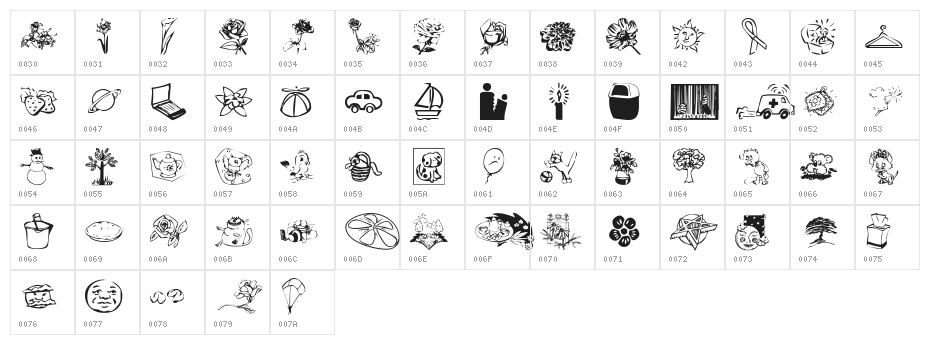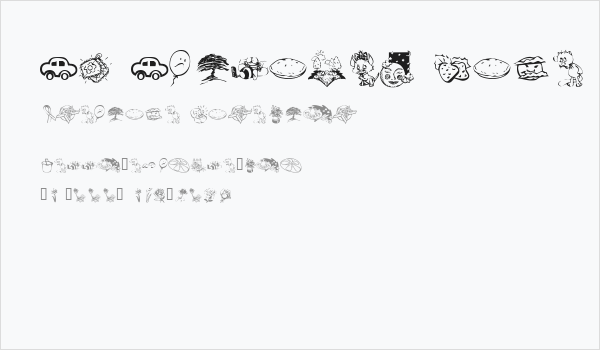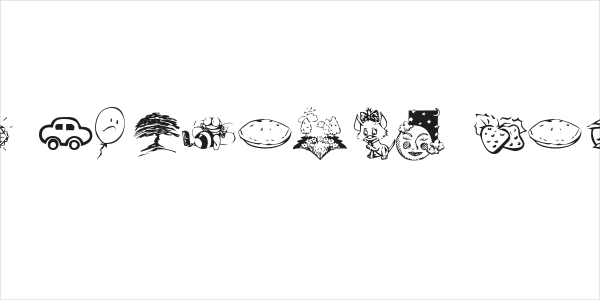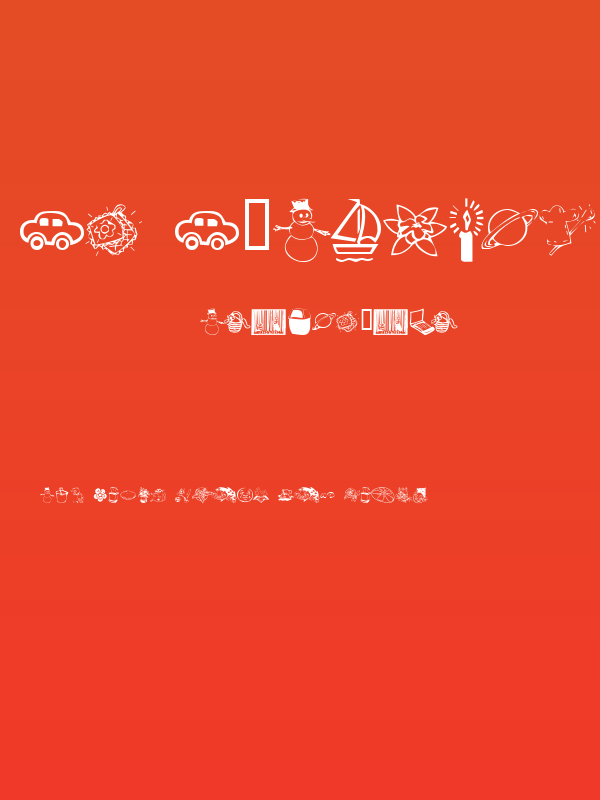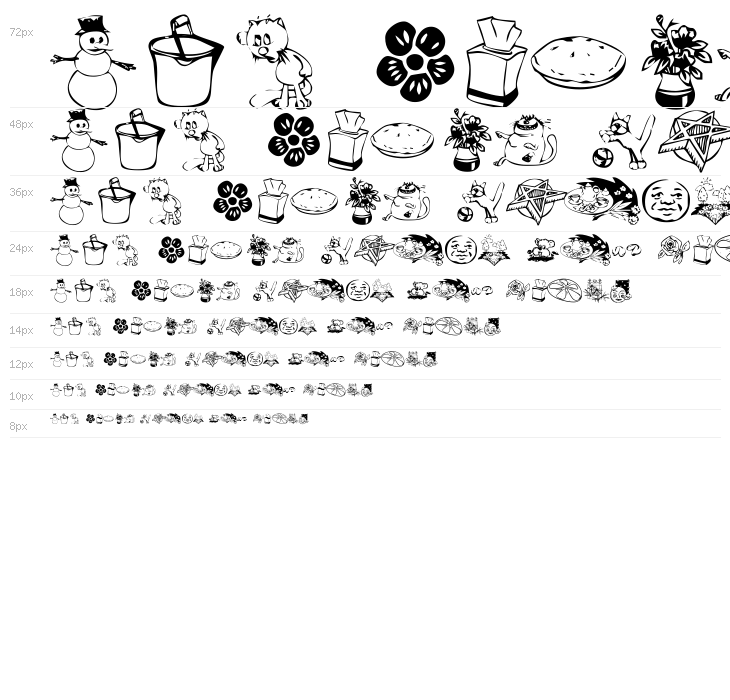
KR Katlings Five Font
KR Katlings Five Description
A playful and whimsical dingbat font composed entirely of hand-drawn illustrations, including objects, animals, flowers, and various scenes. Each character is represented by a unique pictogram, with a consistent black-and-white line art style and moderate detail.
| Overall Style | Whimsical, Playful, Decorative |
| Use Case | Decorative elements, icons, embellishments |
| Proposed Projects | Children's books, educational materials, greeting cards, scrapbooking, playful branding, decorative borders. |